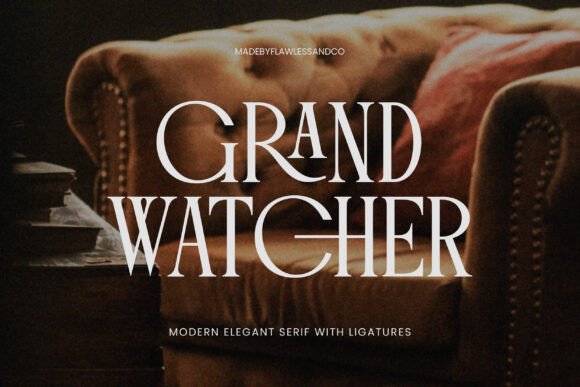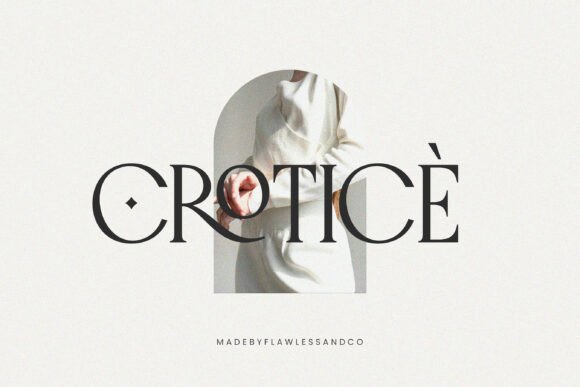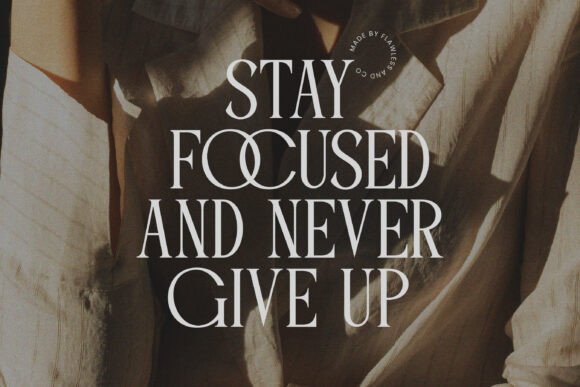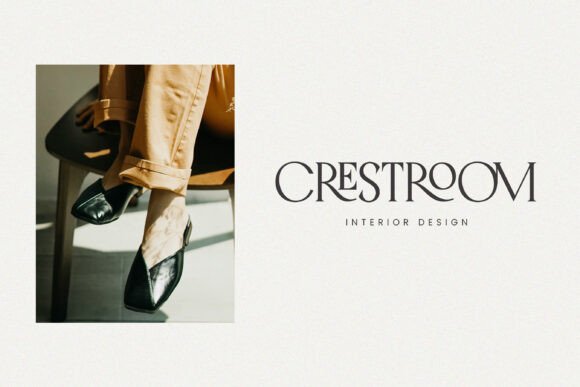
Grand Watcher Font
About the Grand Watcher Font
Presenting Grand Watcher Font, a unique and stylish typeface that will make your work stand out. Introducing “Grand Watcher,” a refined serif font combining timeless elegance and modern design. With its sleek letterforms and beautifully crafted ligatures, Grand Watcher is perfect for adding a touch of sophistication to your projects. This font is suitable for any graphic design, such as branding materials, wedding stationery, product packaging, branding and logo, etc.
Grand Watcher excels in display applications such as headlines, logos, and short-form text within branding materials and packaging. Its elegant serifs and refined details shine in these contexts, lending a sophisticated yet approachable feel. However, its high contrast and relatively large x-height make it less suitable for extended body copy or UI elements where readability is paramount.
For optimal visual harmony, pair Grand Watcher with a clean sans-serif like Lato or Open Sans for body text, creating a balanced contrast between formality and legibility. Alternatively, a playful script font such as Pacifico could add a touch of personality to supporting elements, while maintaining the overall sophistication.
Grand Watcher projects an air of refined modernity; it’s both elegant and approachable, making it ideal for brands seeking a timeless yet contemporary aesthetic. Think high-end fashion, curated lifestyle products, or sophisticated events.
Grand Watcher Font Example